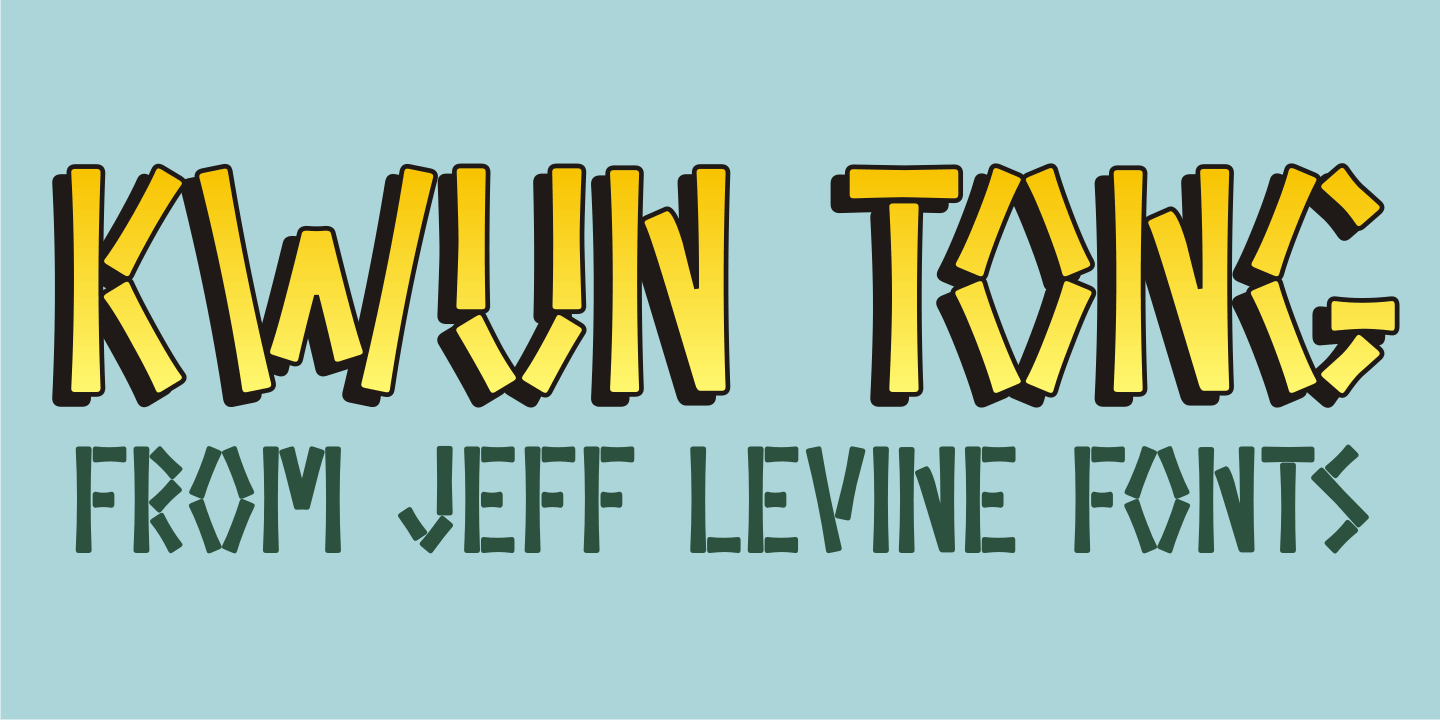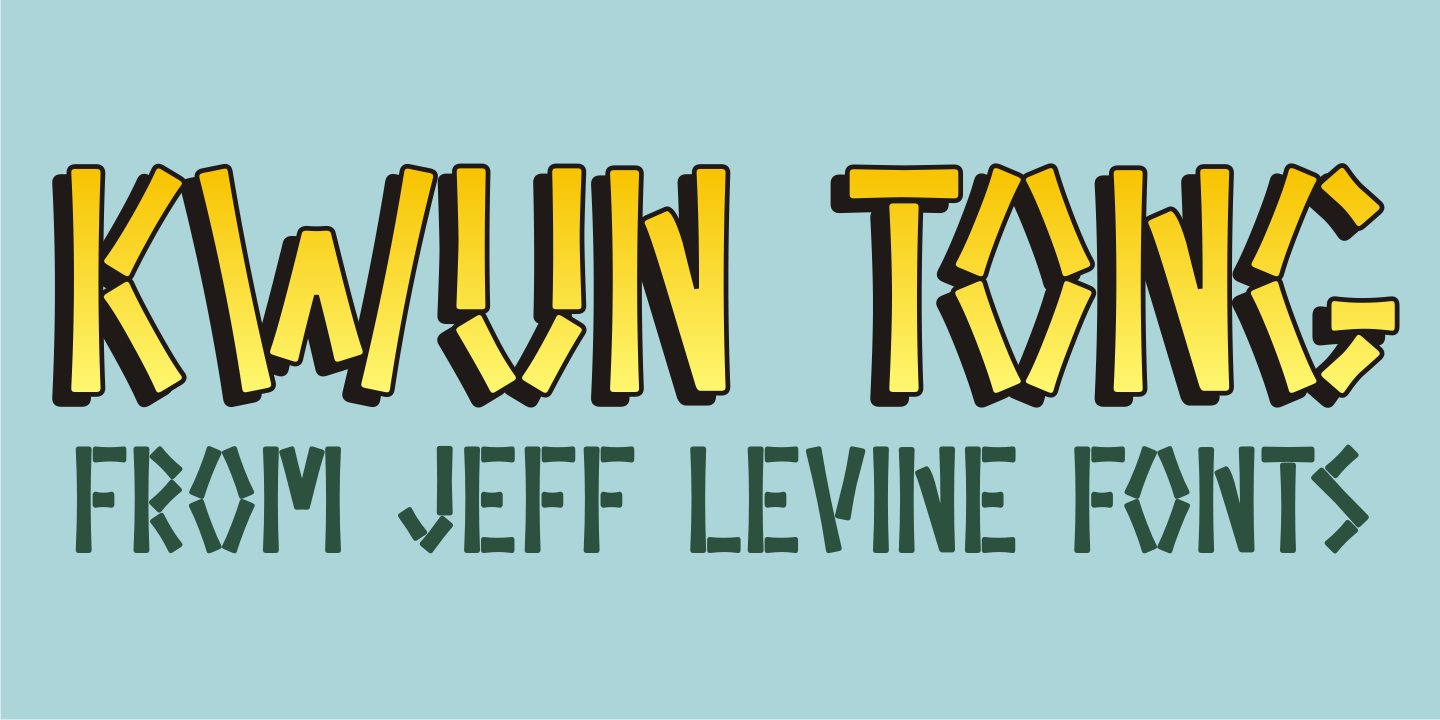
Designed by Jeff Levine, Kwun Tong JNL is a novelty font family published by Jeff Levine Fonts.
Loosely based on a hand lettered title found on vintage sheet music for the song “Hong Kong”, the design for Kwun Tong JNL emulates the letters and numbers formed from pieces of bamboo stalk.
Kwun Tong JNL is named for a locality in Hong Kong although (according to Wikipedia) “…the Hong Kong Government is unitary and does not define cities and towns as subsidiary administrative units.”